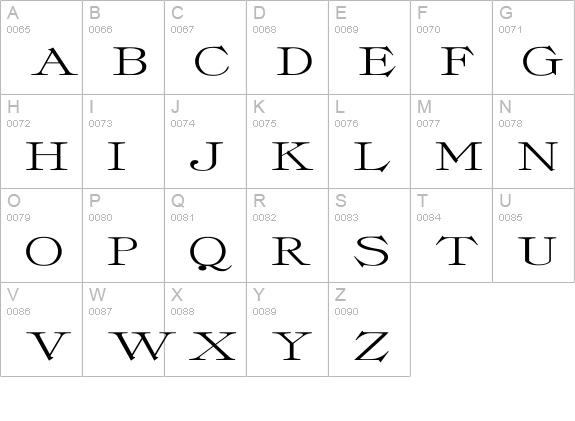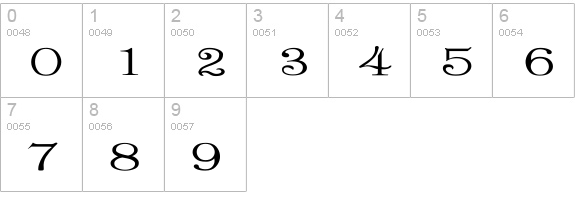
ProvLite Ex Font Details
ProvLite Ex is a modern and stylish font that exudes sophistication and elegance. With its sleek lines and sharp edges, this versatile typeface is perfect for a wide range of design projects, from branding to editorial layouts. Its clean and minimalist aesthetic makes it the ideal choice for creating a polished and professional look. What sets ProvLite Ex apart is that it is available for free download at FontsMarket.com. This means that you can easily access this high-quality font without any cost, making it a valuable addition to your design toolkit. Whether you're working on a website, poster, or logo, ProvLite Ex will elevate your designs and give them a touch of class. Don't miss out on this fantastic opportunity to enhance your projects with this exceptional font.